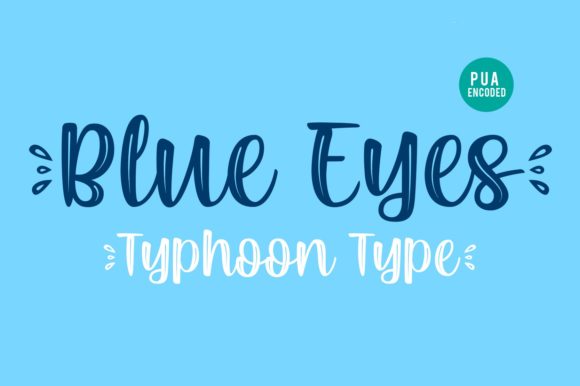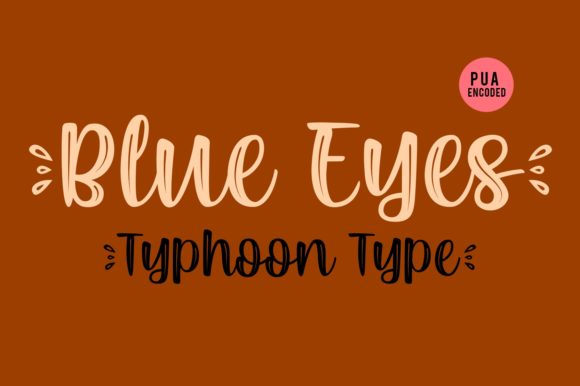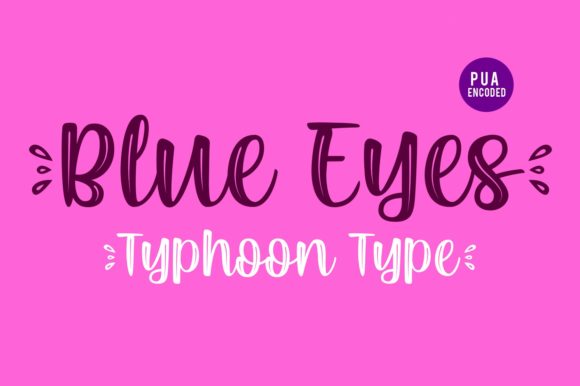
Blue Eyes Font
About Blue Eyes Font
“Blue Eyes” is a flowing and elegant handwritten font, characterized by its unique and timeless style. With its graceful touch, this font is perfect for a wide range of design projects. Here are some creative ideas to make the most of the “Blue Eyes” font and create stunning designs:
1. Wedding Invitations: Design elegant and romantic wedding invitations using the “Blue Eyes” font to add a personal and sophisticated touch.
2. Greeting Cards: Create beautiful and heartfelt greeting cards for special occasions, such as birthdays, anniversaries, and holidays, with the font’s flowing script.
3. Branding and Logos: Use the font to design stylish logos and brand identities, particularly for businesses in the beauty, fashion, or luxury industries.
4. Social Media Graphics: Enhance your social media posts with the “Blue Eyes” font to convey a sense of elegance and refinement.
5. Stationery and Letterhead: Design professional stationery and letterhead for businesses and personal use with the font’s elegant script.
6. Quotes and Typography Art: Create stunning typography art and posters featuring inspiring quotes and phrases using the graceful “Blue Eyes” font.
7. Product Packaging: Apply the font to design product labels, tags, and packaging for a sophisticated and refined look.
8. Book Covers: Use the font for book titles and covers to evoke a sense of elegance and timelessness.
9. Website Headings: Incorporate the “Blue Eyes” font in website headings and banners for an elegant and eye-catching design.
10. Event Signage: Design event signage and banners with the font to create a polished and upscale atmosphere.
11. Magazine Covers: Apply the font to magazine covers for a touch of sophistication and elegance.
12. Personal Branding: Use the “Blue Eyes” font as part of your personal branding on business cards, email signatures, and personal websites.
The “Blue Eyes” font’s distinct and flowing style will add a touch of timeless elegance to any design project. Its versatility allows it to adapt to various themes and industries, making it an excellent choice for both formal and informal designs. Fall in love with the grace and sophistication of “Blue Eyes,” and let it elevate your favorite projects to new heights of beauty and elegance!